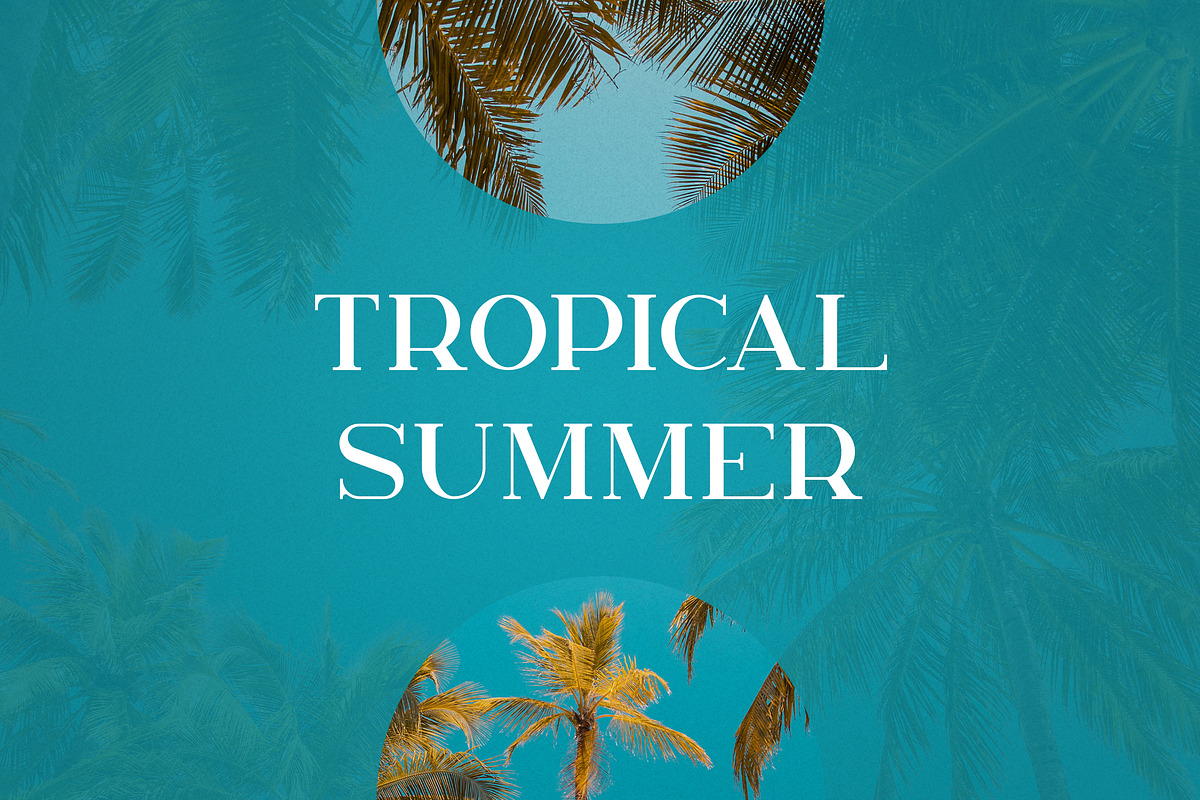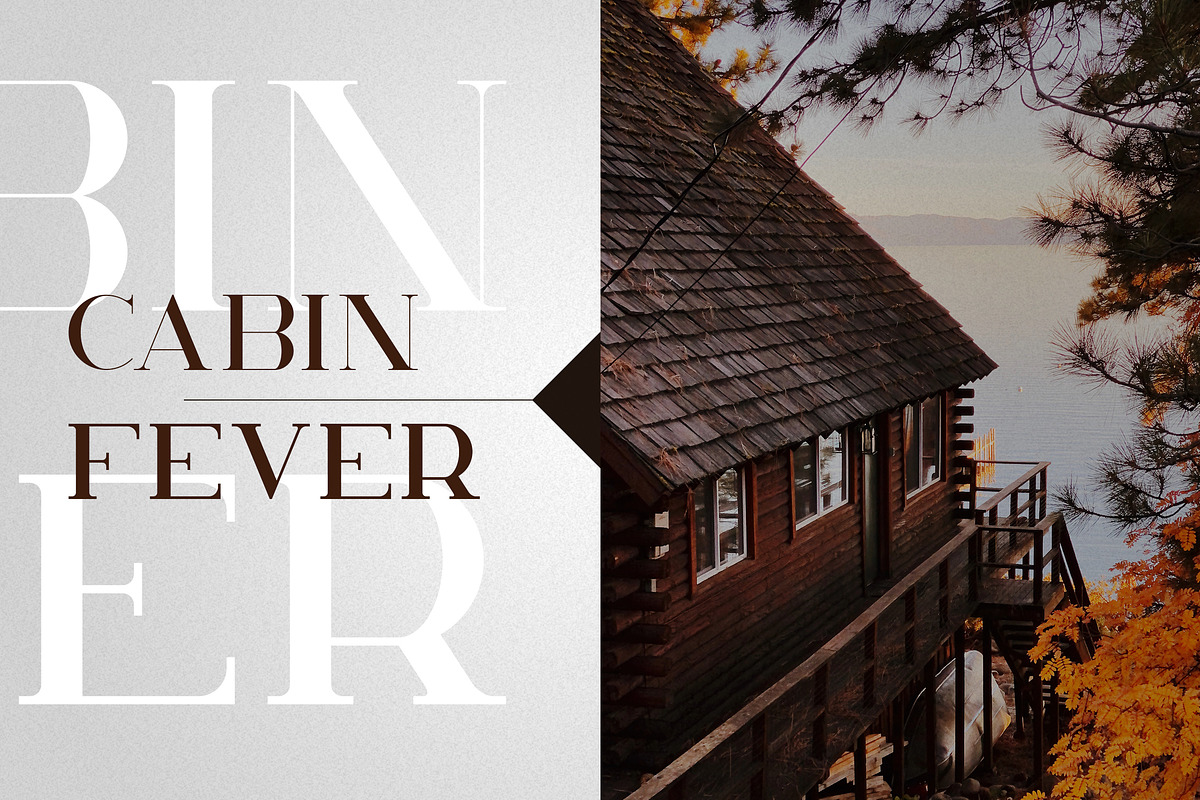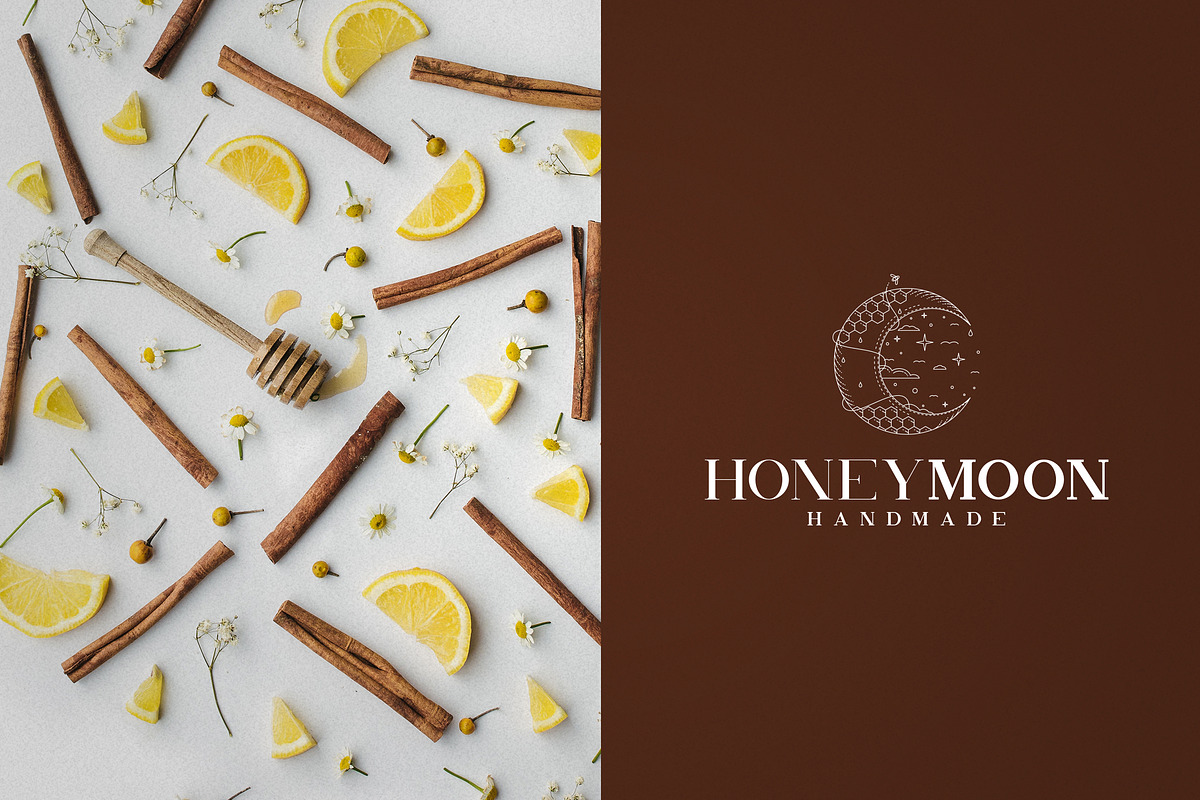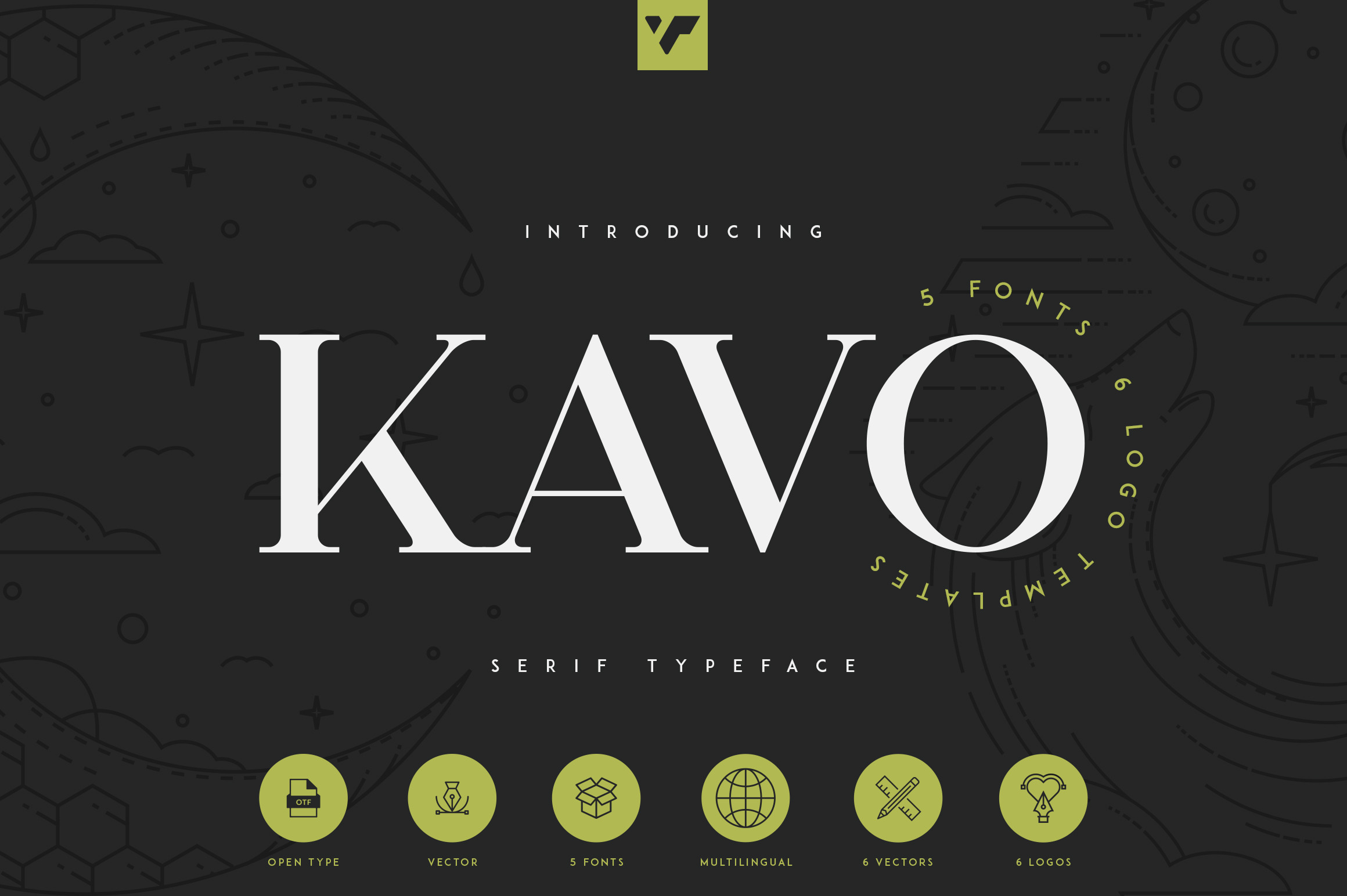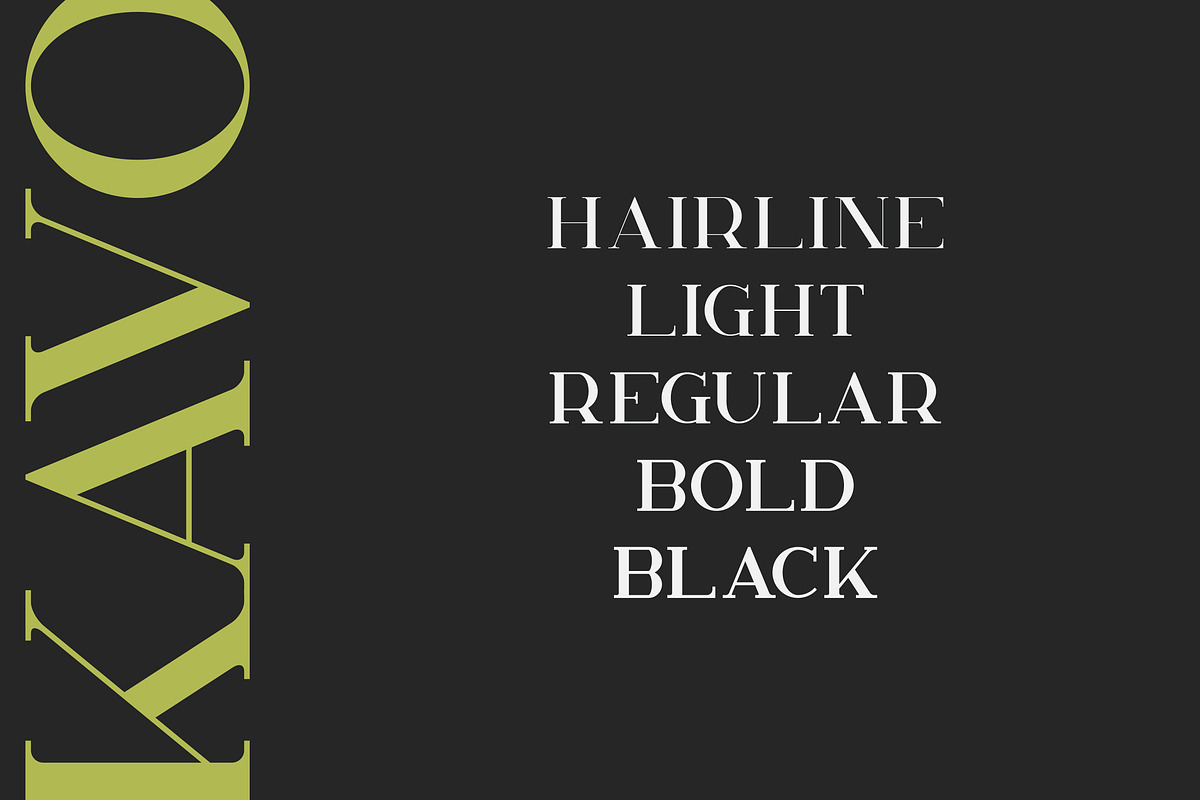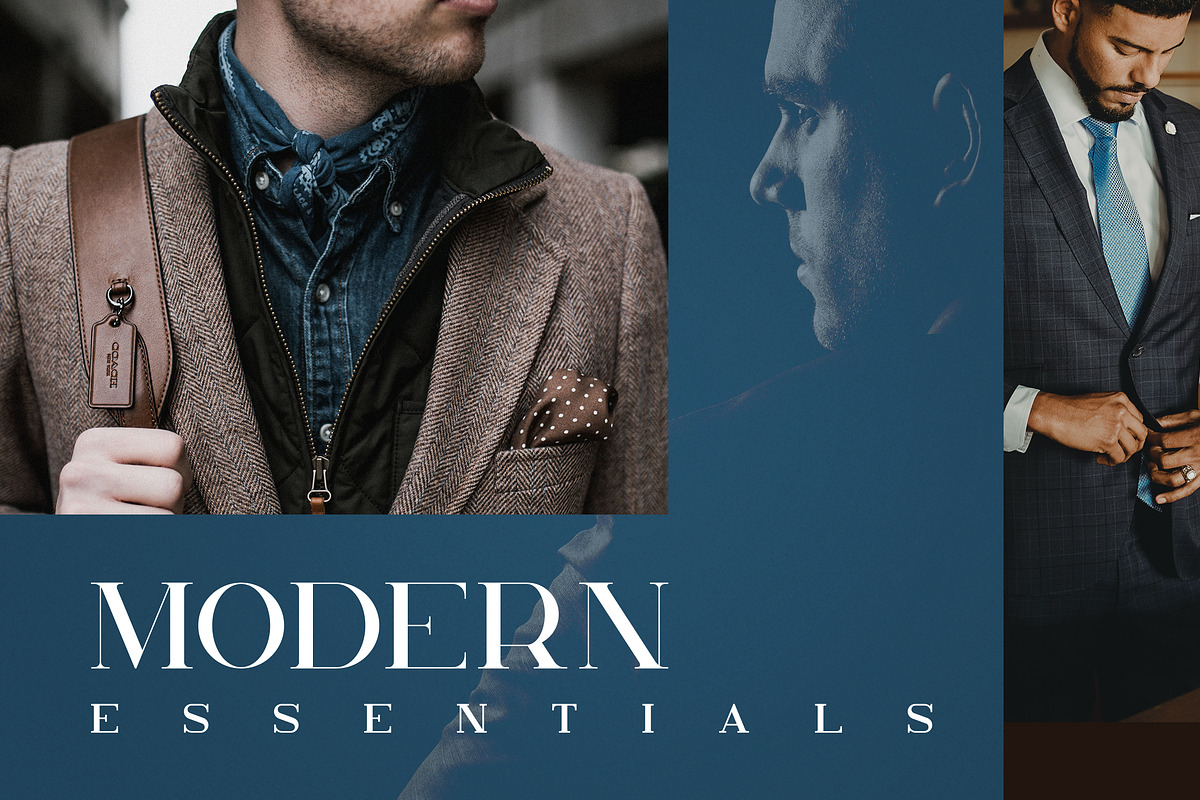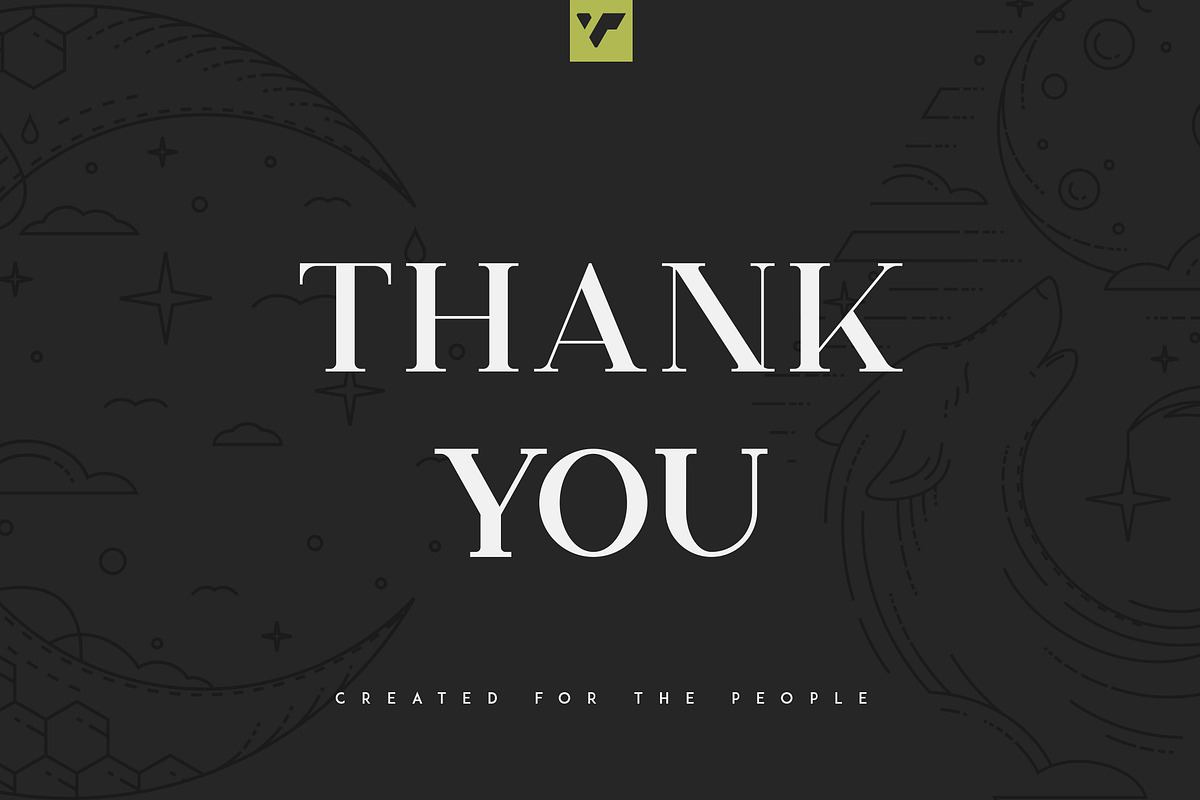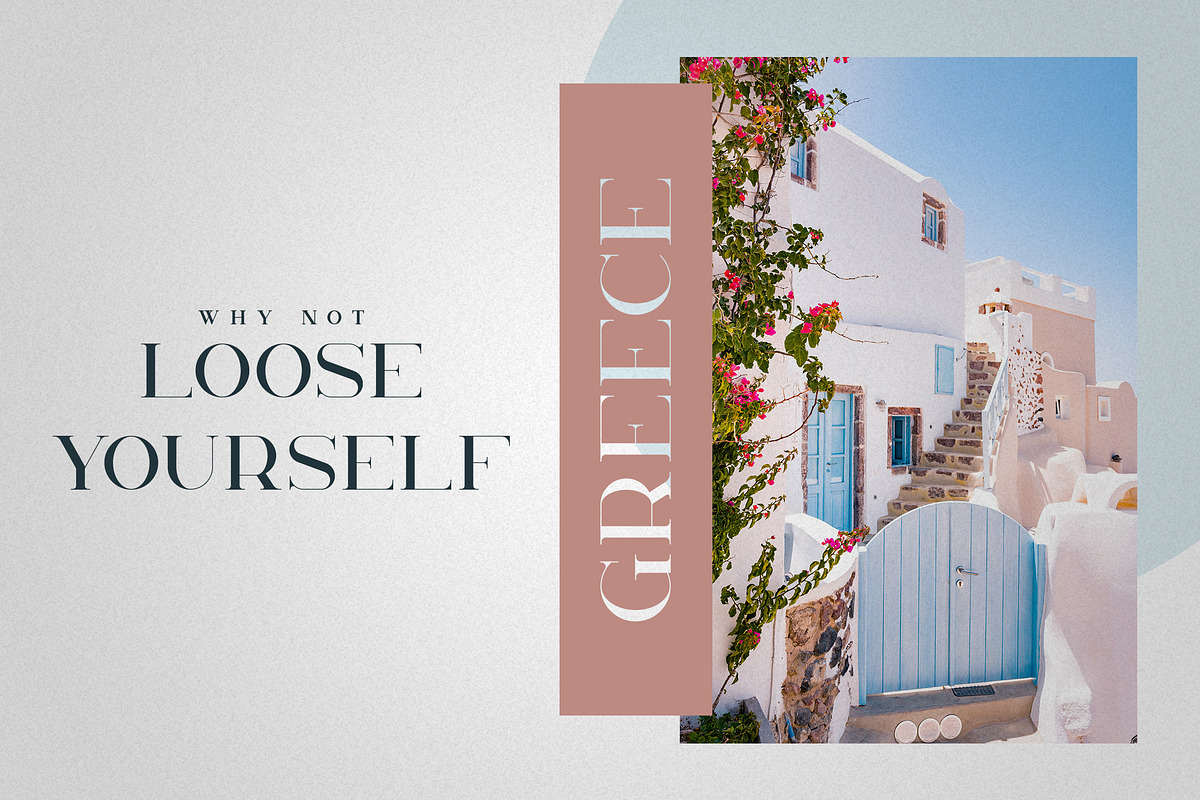
Kavo Serif Typeface - 5 weights
Introducing Kavo Serif typeface - 5 weights + 6 Logo Templates
Kavo serif is clean, modern typeface with 5 weights, 6 awesome vector designs, 6 logo templates and multilingual support. It's a very versatile font that works great in large and small sizes.
Kavo serif is perfect for branding projects, home-ware designs, product packaging, magazine headers - or simply as a stylish text overlay to any background image.
- Uppercase, numeral, punctuation & Symbol
- Hairline
- Light
- Bold
- Black